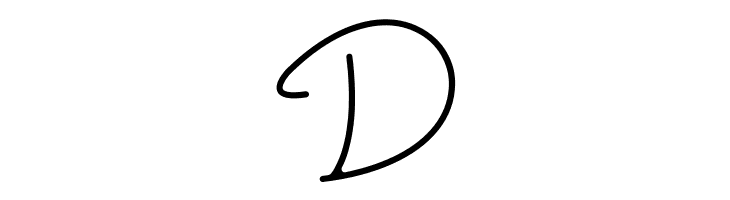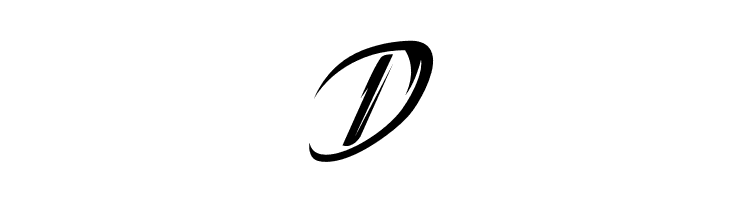
A flowing, cursive script font with elegant, sweeping strokes.
A fluid, cursive font with elegant, sweeping strokes and a handwritten appearance.
A lively, cursive script font with bold, sweeping strokes and elegant curves.
A flowing, cursive script font with elegant, sweeping lines.
A bold, dynamic script font with sweeping strokes and a modern flair.
A bold, expressive script font with dynamic, sweeping strokes and elegant curves.
A bold, cursive-style font with dynamic, sweeping strokes and a sense of movement.
A flowing, cursive script font with elegant, sweeping strokes.
A flowing, cursive font with elegant, sweeping strokes and classic calligraphic style.